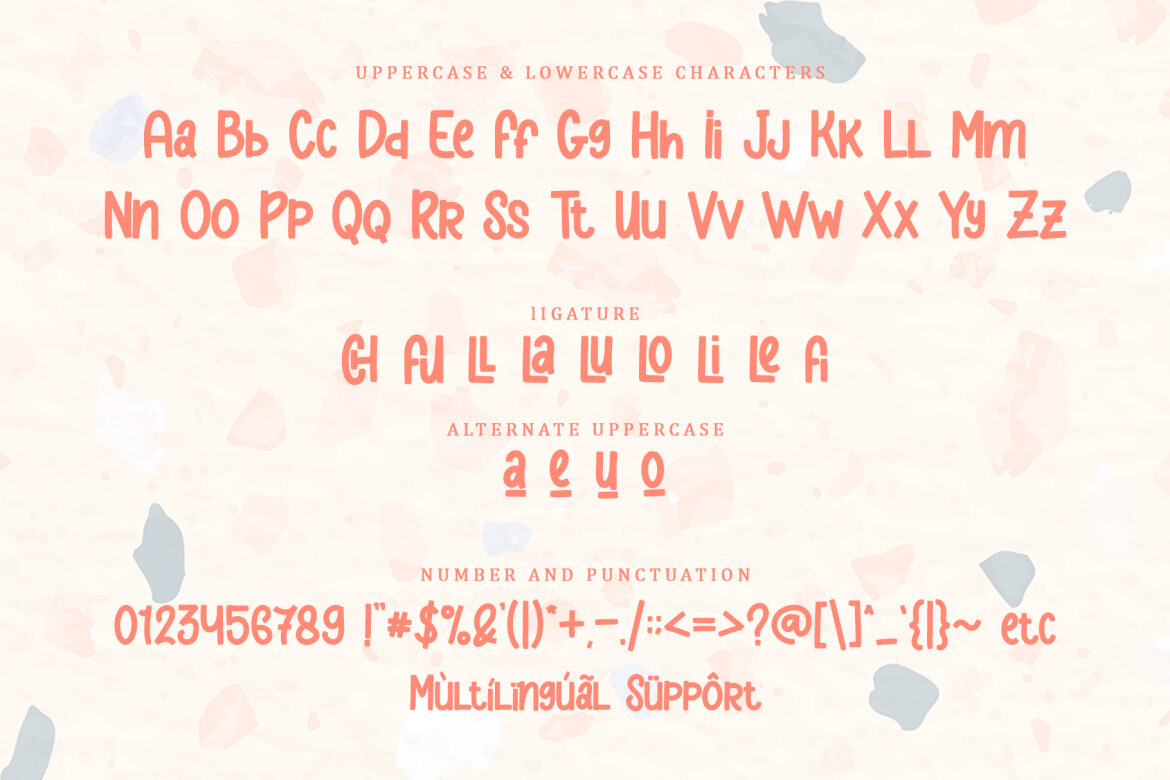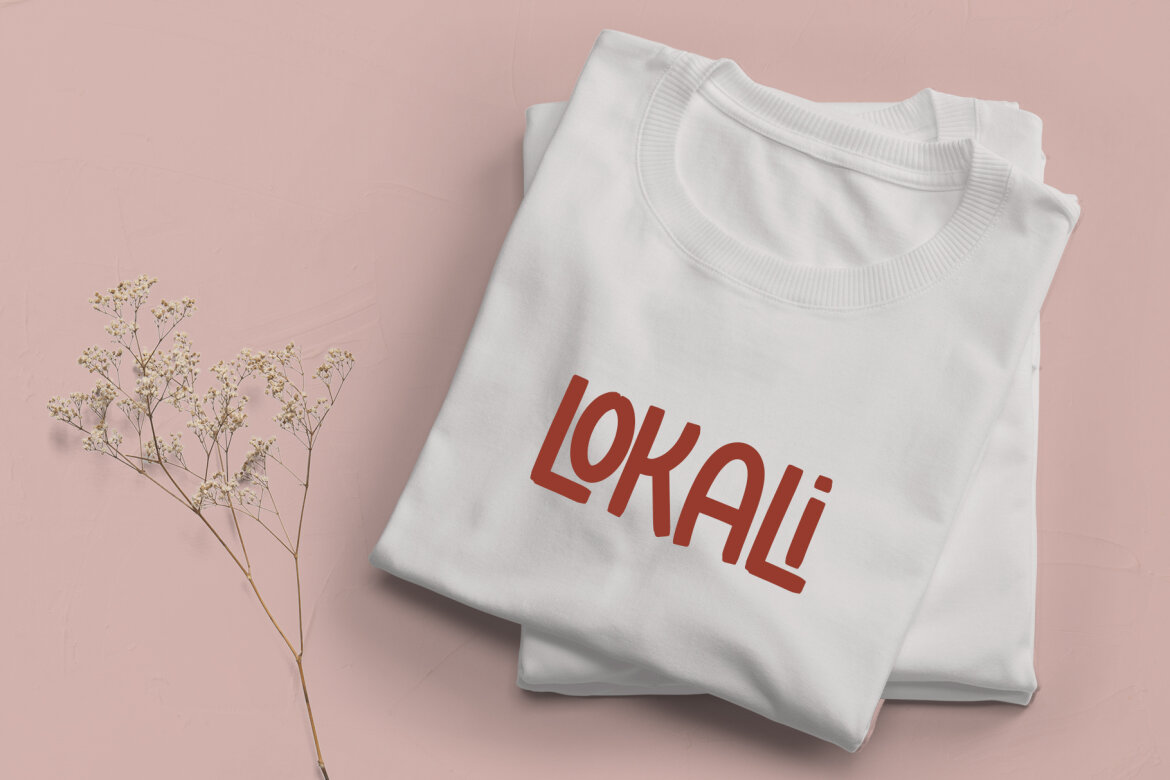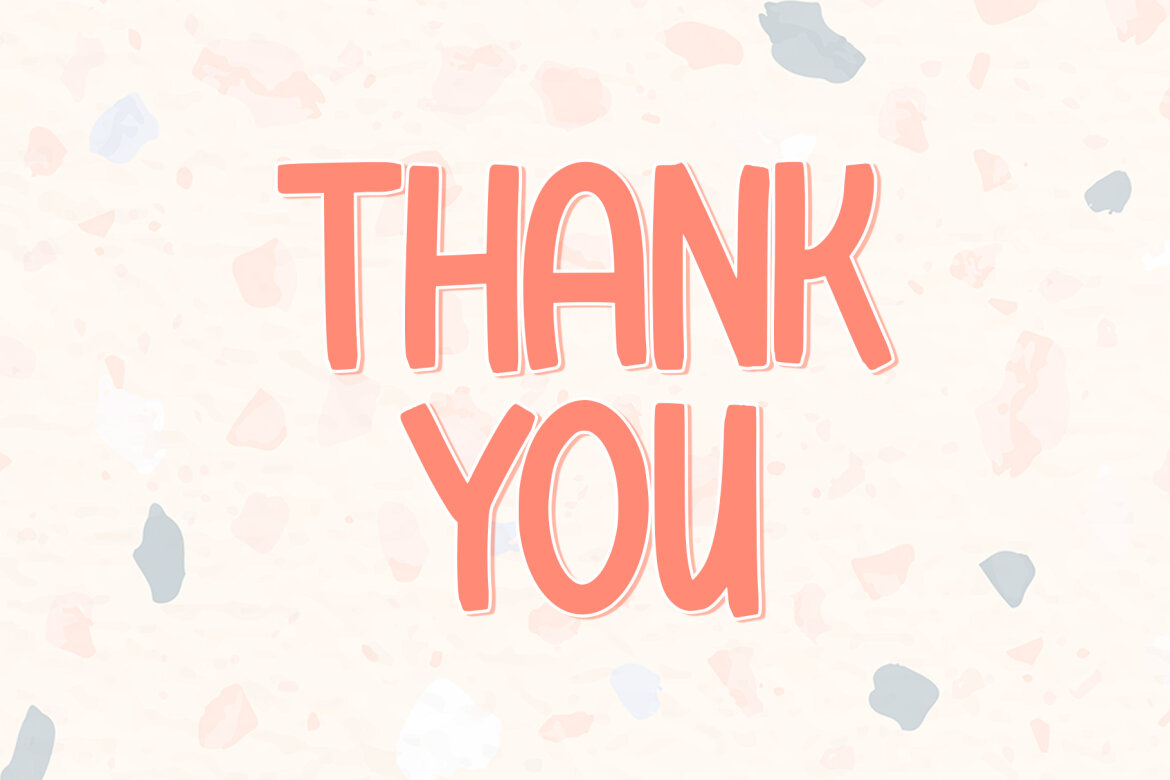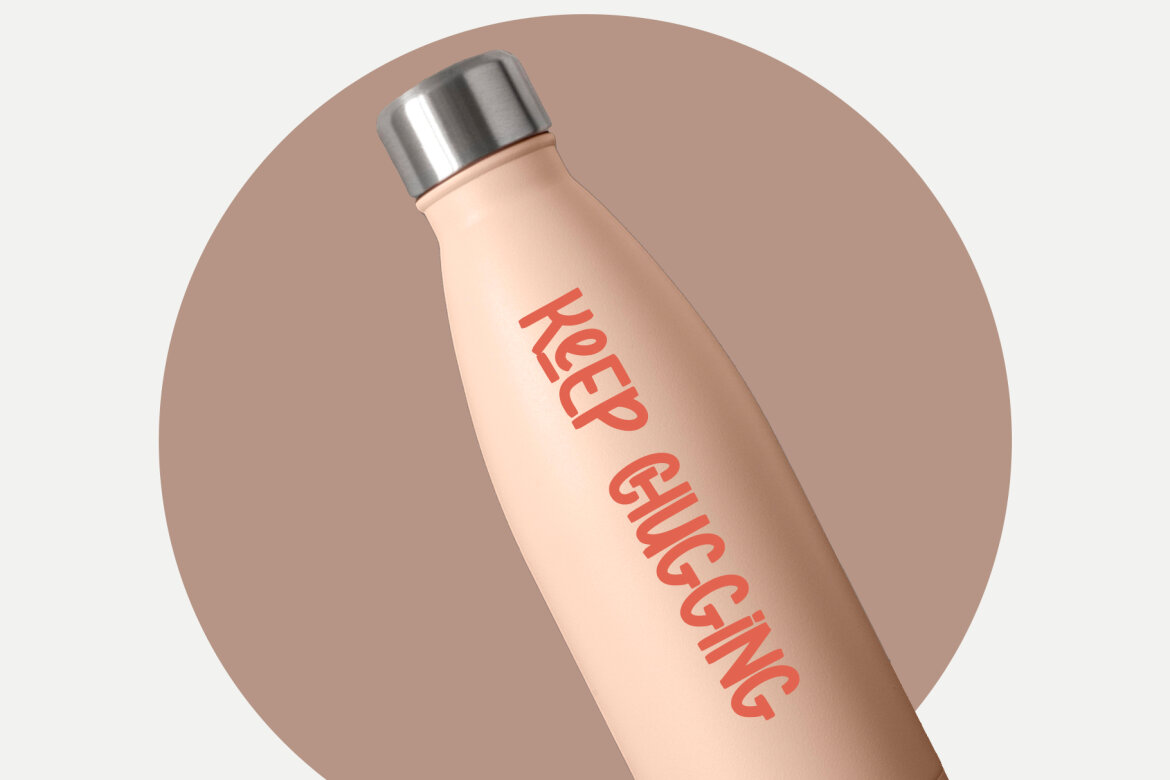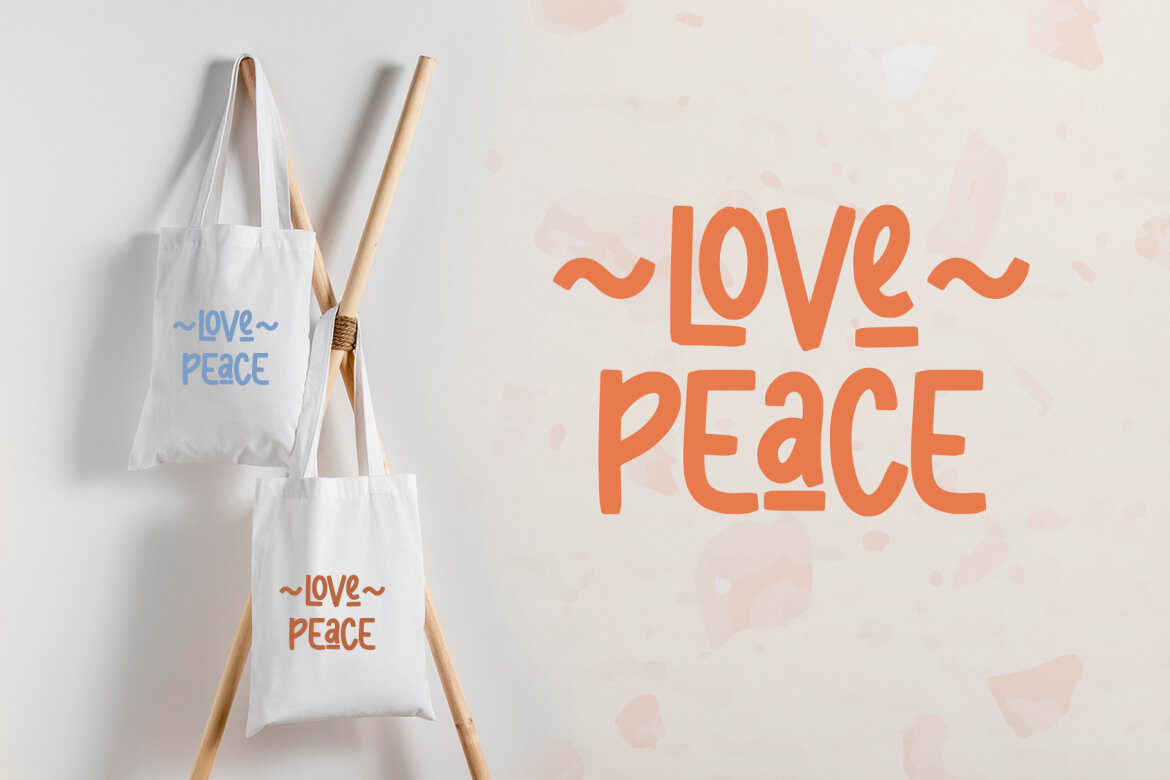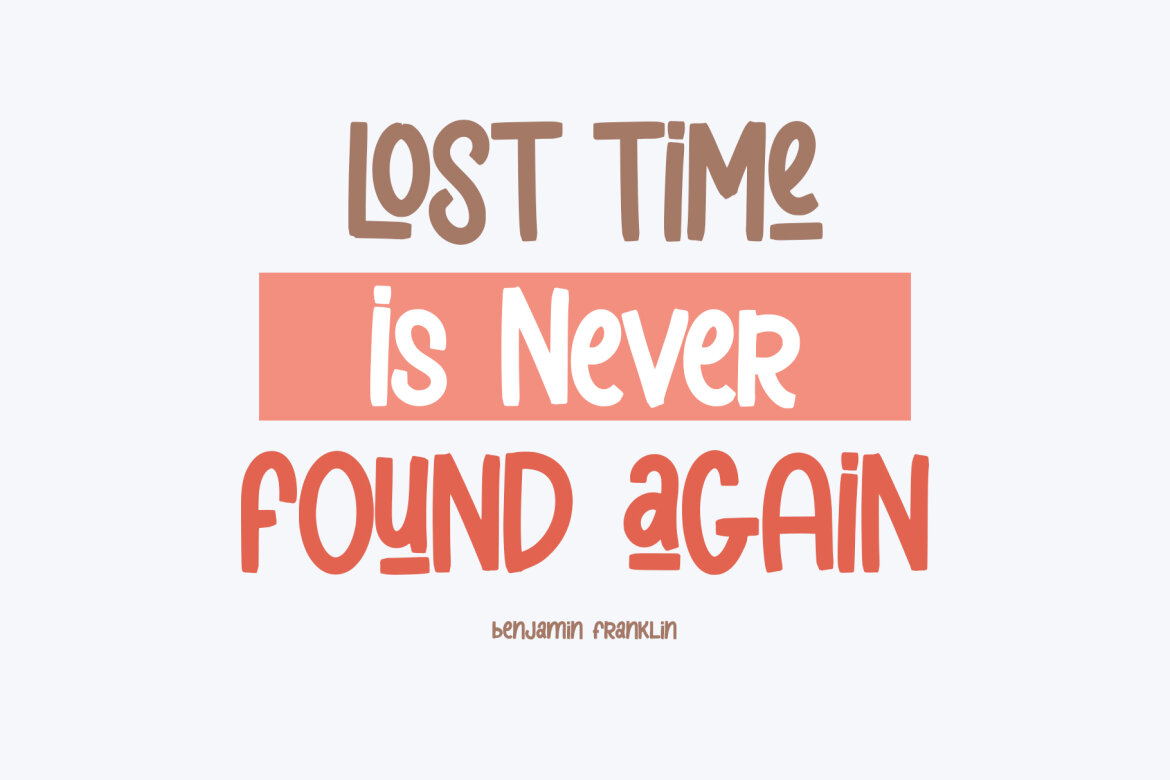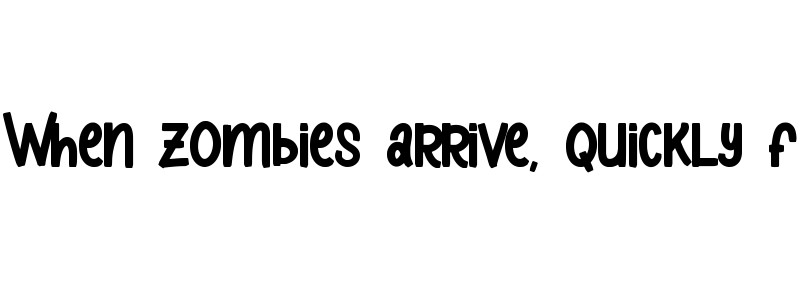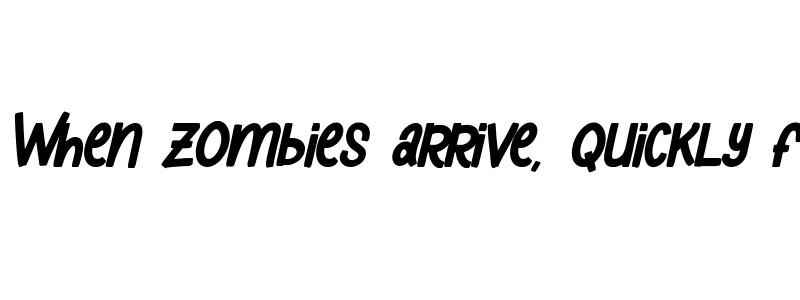
Cheerful Peach FREE Font
Cheerful Peach is a cute and playful display font that conveys impeccable friendliness. Whether you’re using it for crafts, digital design, presentations, or making greeting cards, this font has the potential to become your favorite go-to font, no matter the occasion!
• support multilingual; ä ö ü ä ö ü ß ¿ ¡